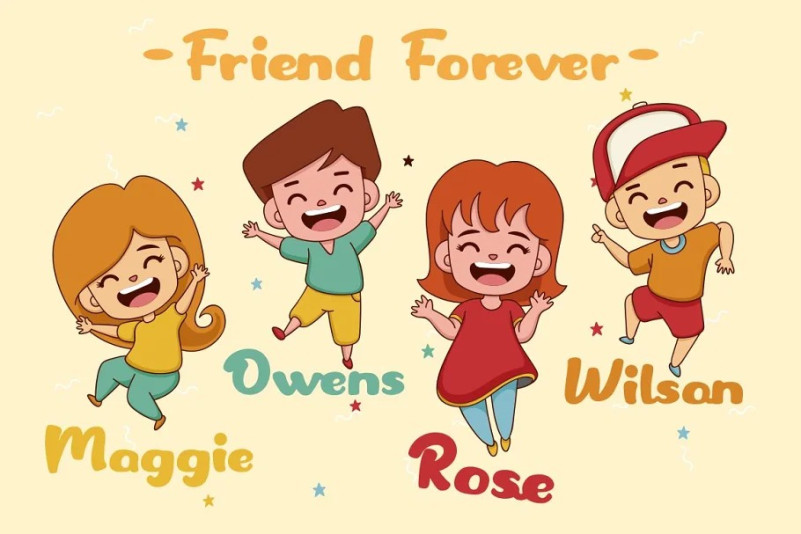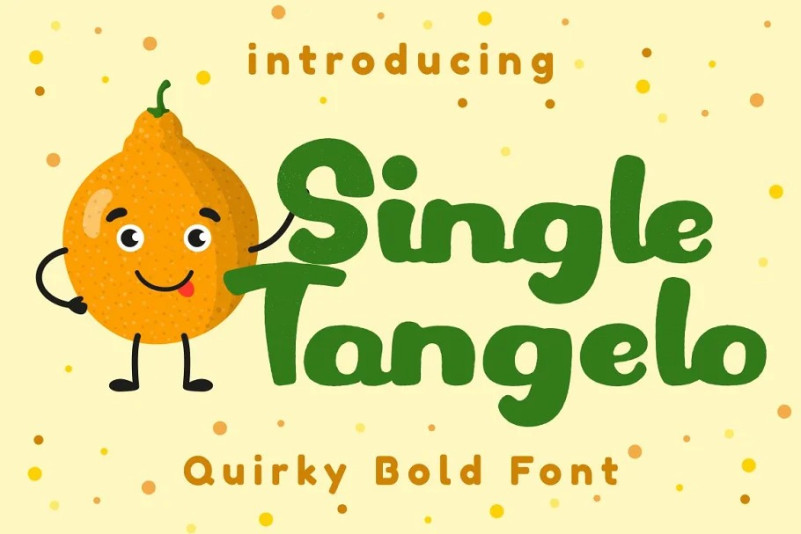
Single Tangelo – Quirky Script Bold Font. This font is a quirky and script font with a playful style and style for children. This font has a lot of character ligatures, as many as 151 ligatures. With that much ligature will make this font more unique and interesting. This font is perfect for projects related to children. This font is perfect for logos, greeting cards, quotes, svg, clothes, posters, logos, krafting, stickers, toys, and more. This font can be installed on MAC OS and Windows OS, it can also be installed in the procreate and cricut applications.
Come with lot of ligatures character, its help you to make great lettering, quote, logos and. This font is also support multi language.